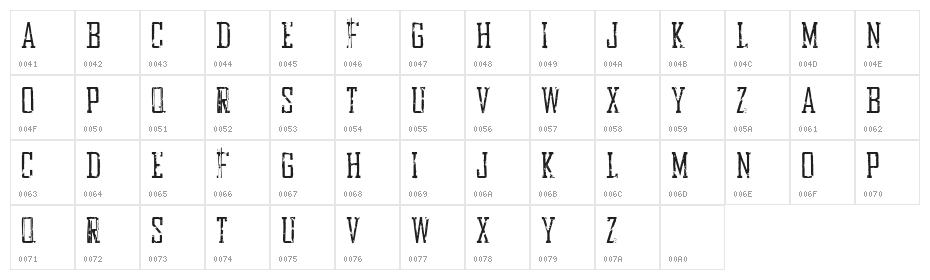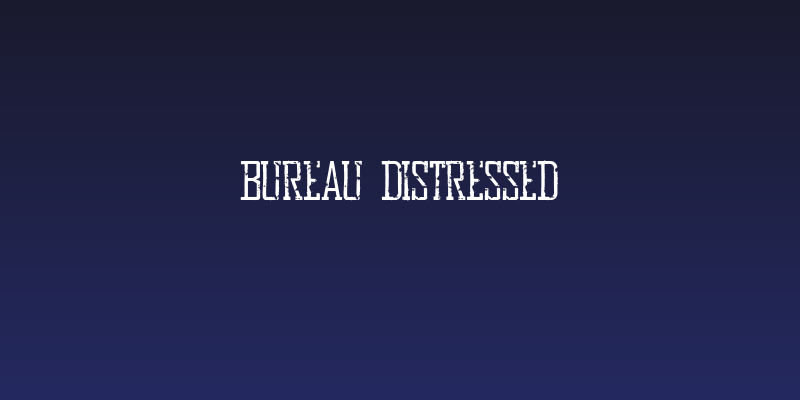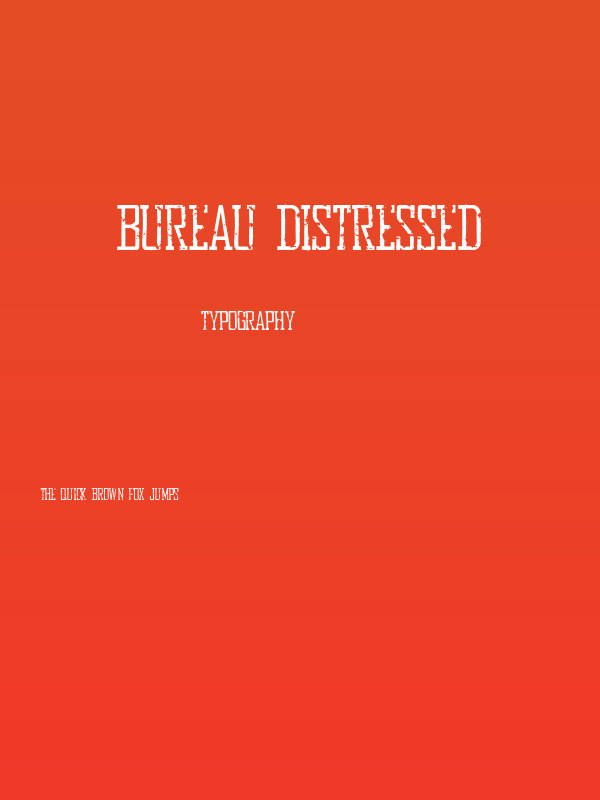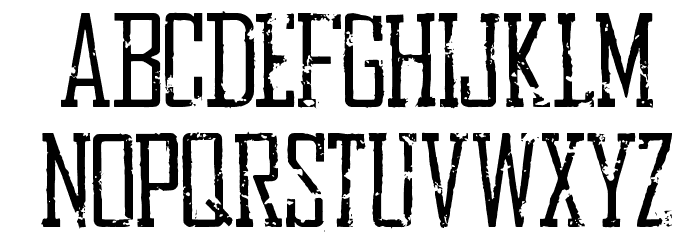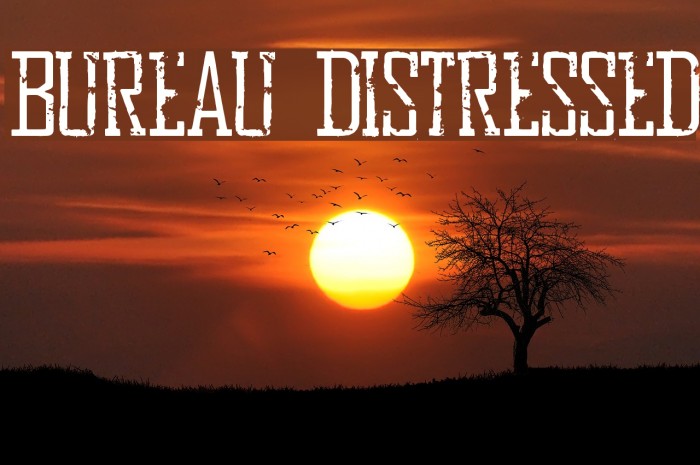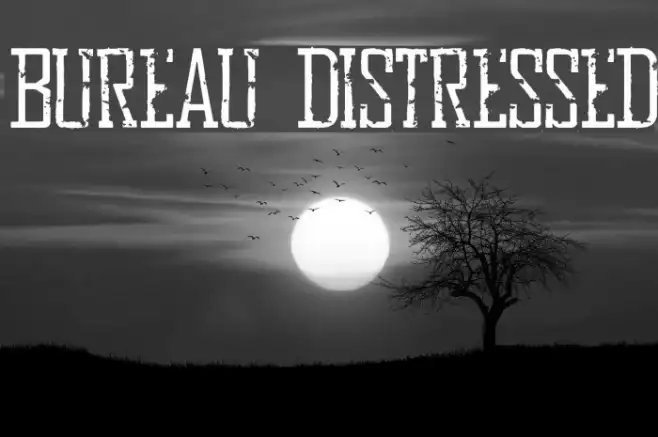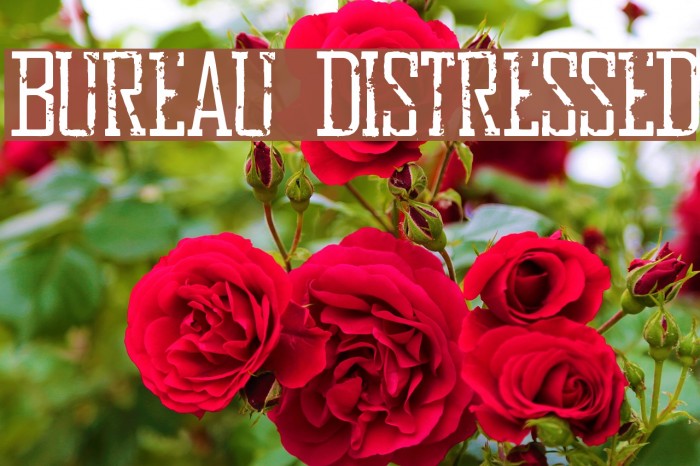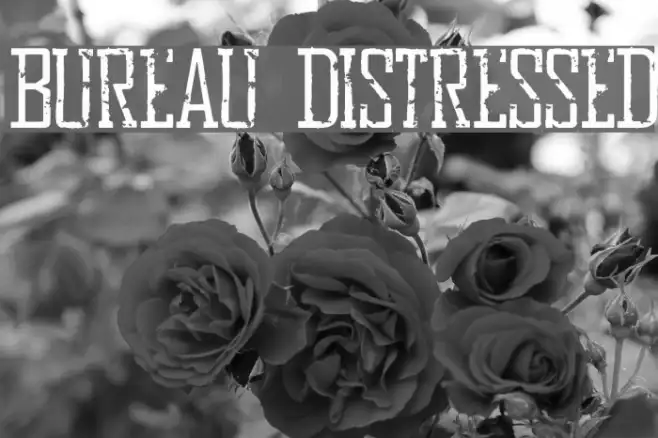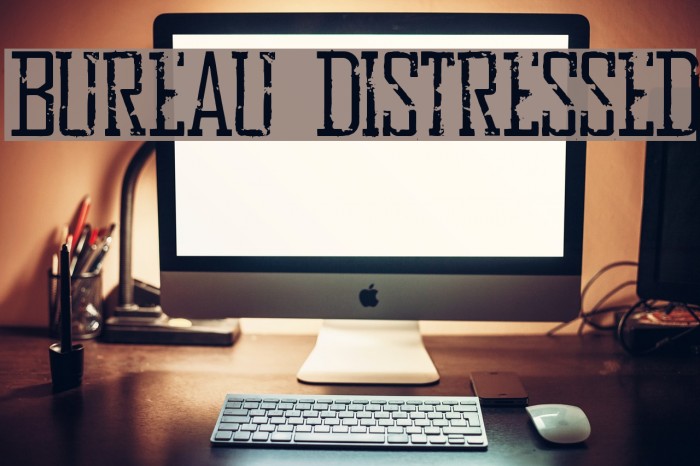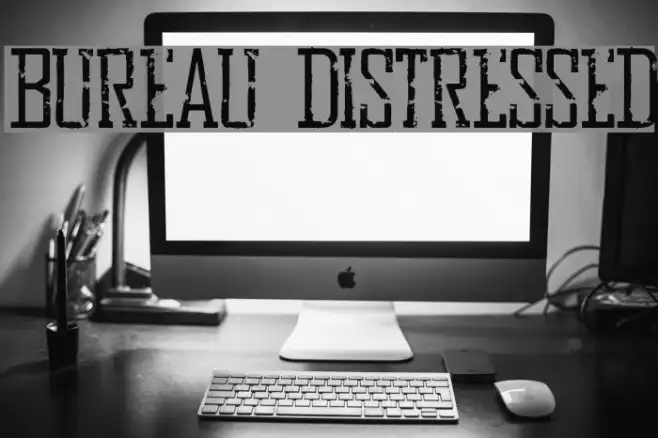
Bureau Distressed Font
Bureau Distressed Description
This font features a distressed, weathered appearance, giving it a rugged and vintage feel. The characters are bold and uppercase, with a slab serif style that adds to its strong and impactful presence. The distressed texture is consistent across all letters, creating a cohesive look that suggests wear and age. This style is reminiscent of old signage or typewriter fonts, making it ideal for projects that require a touch of nostalgia or a gritty, industrial aesthetic.
| Proposed Projects | Ideal for vintage-themed designs, posters, branding for rustic or industrial products, and any project needing a bold, aged aesthetic. |